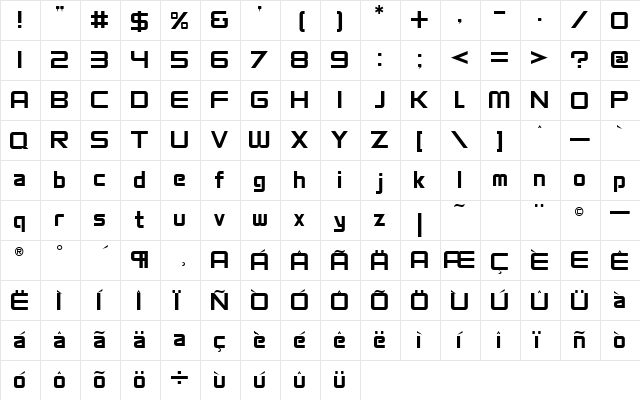
VentureRegular Regular
Design Context for VentureRegular Typeface
VentureRegular takes a measured approach to typography — its balanced proportions and neutral character make it a reliable workhorse for both digital and print work.